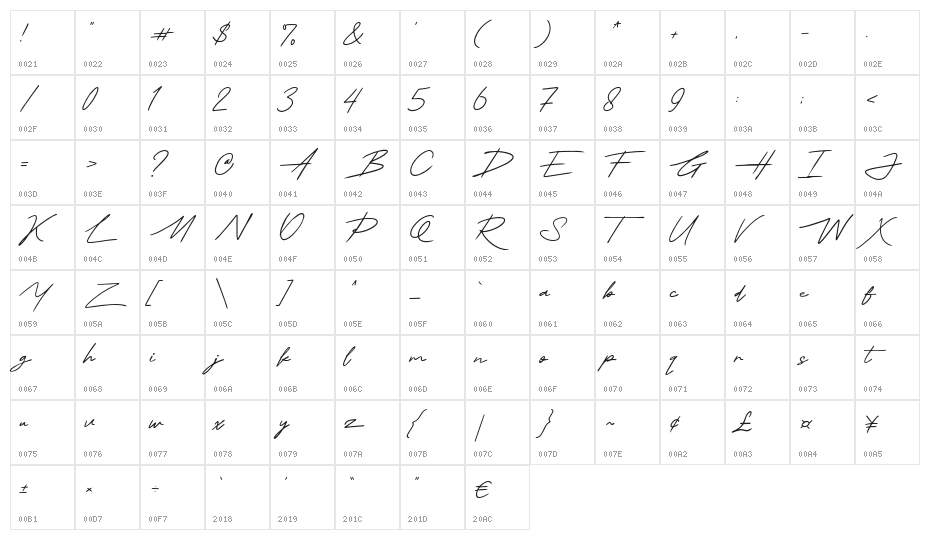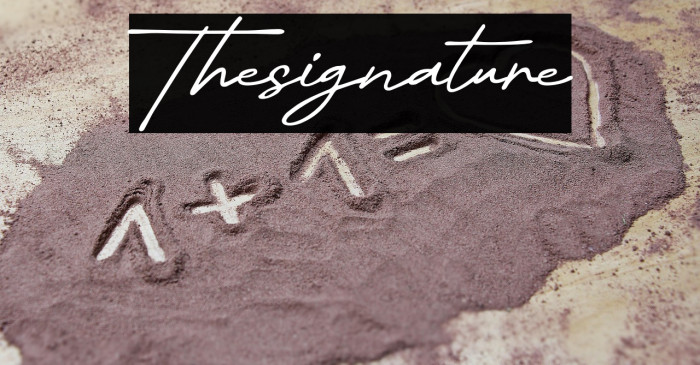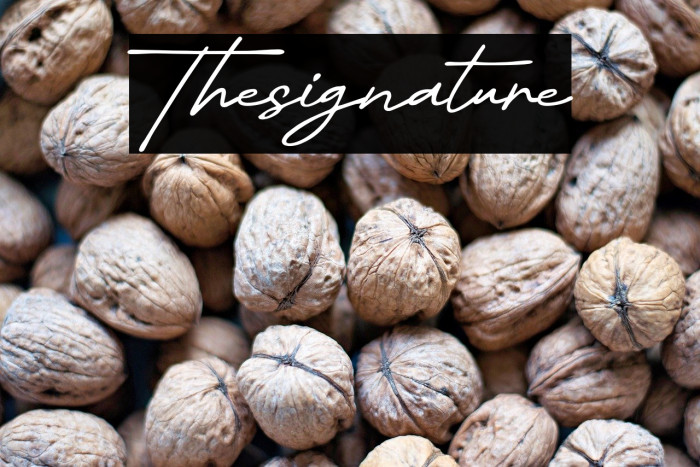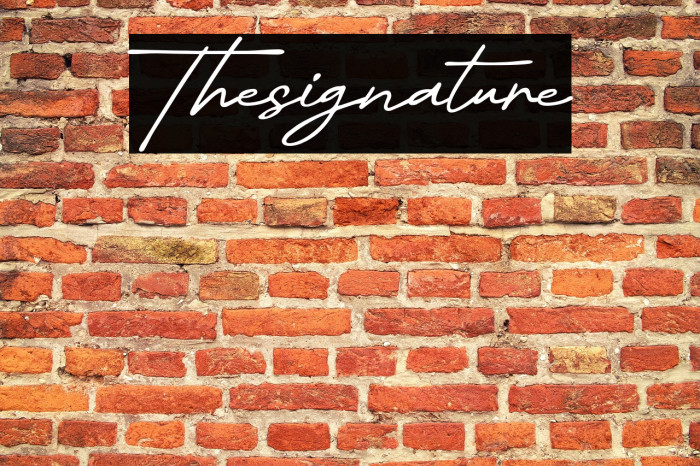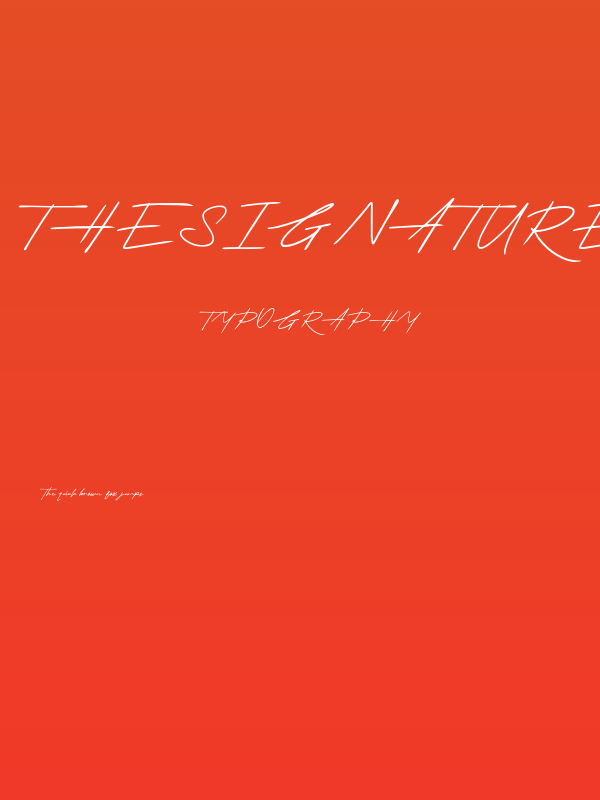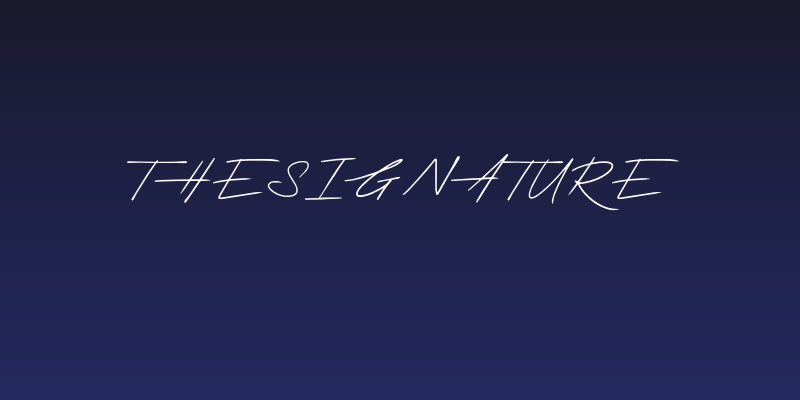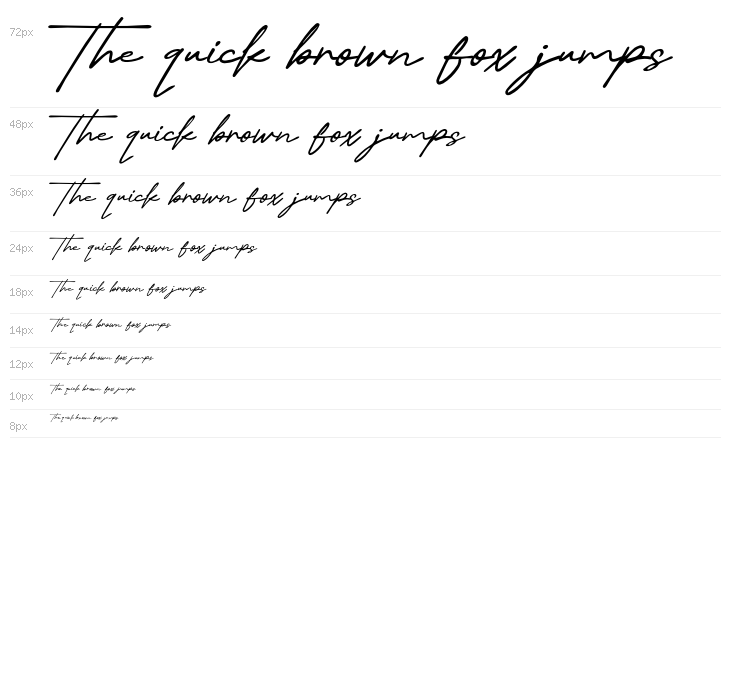
Thesignature Font
Thesignature Description
This elegant script font exudes a sense of sophistication and fluidity, characterized by its smooth, flowing lines and cursive style. The uppercase letters are slightly more angular, providing a nice contrast to the more rounded and connected lowercase letters. The numerals are consistent with the overall style, maintaining the same fluidity and elegance. Special characters are seamlessly integrated, ensuring a cohesive look across all glyphs. This font is perfect for projects that require a personal touch or a handwritten feel, such as invitations, branding, or artistic designs.
| Overall Style | Elegant, Handwritten |
| Use Case | Logos, Invitations, Artistic Designs |
| Proposed Projects | Ideal for wedding invitations, personal branding, artistic designs, and elegant stationery. |